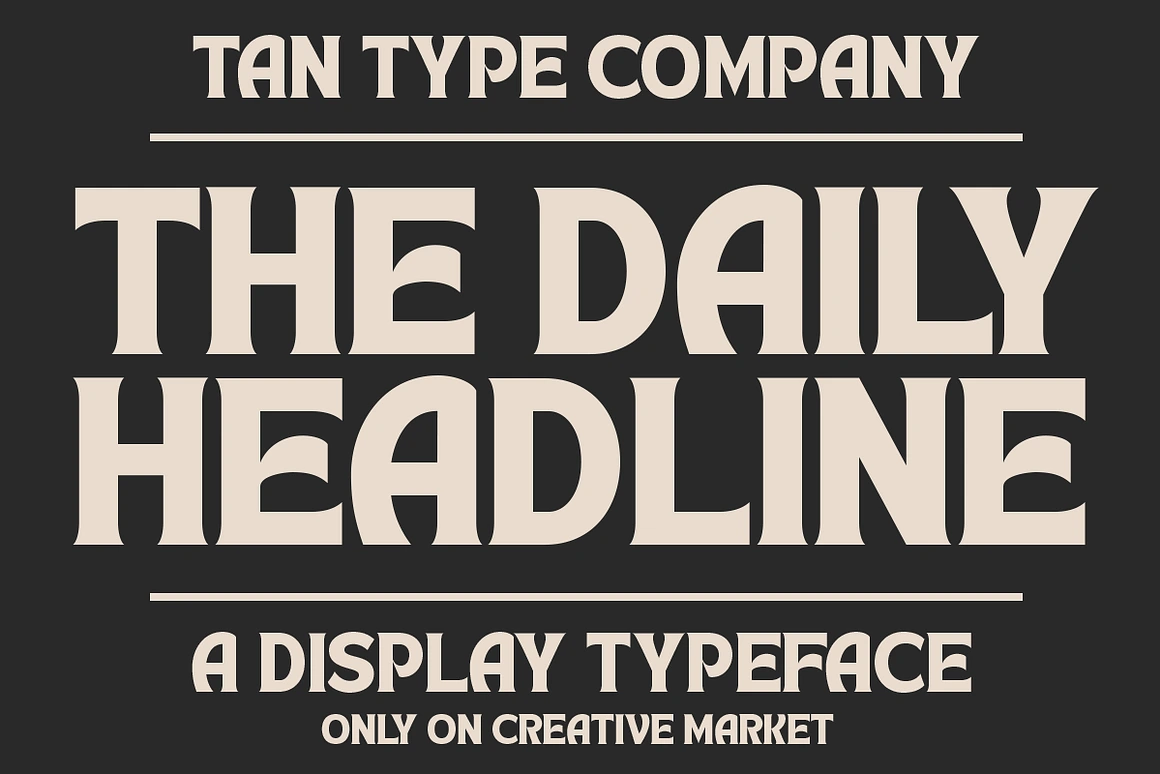
Hi, I’m struggling to identify this font, with its distinctive lowercase characters, particularly ‘a’, ‘e’, ‘s’ & ‘v’.
I’m drawing a blank with the usual identification platforms, and would appreciate any assistance. TIA
I found it. It’s Tan - Headline, by TanType, on Creative Market.